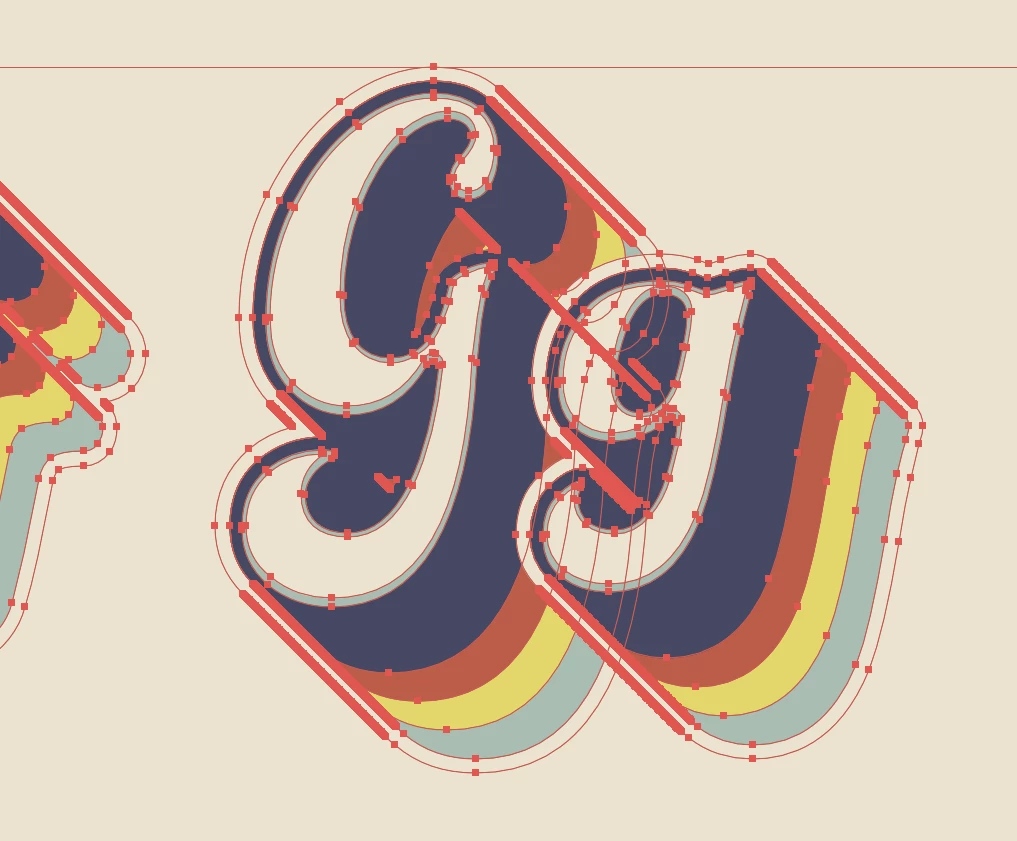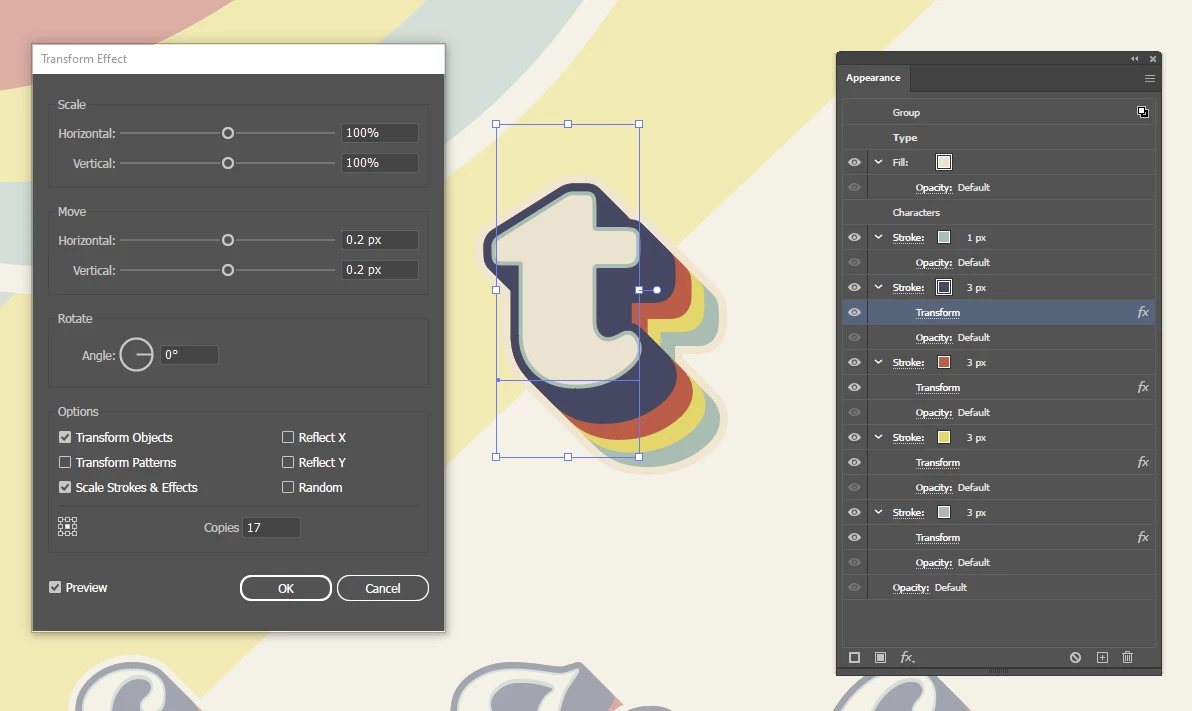
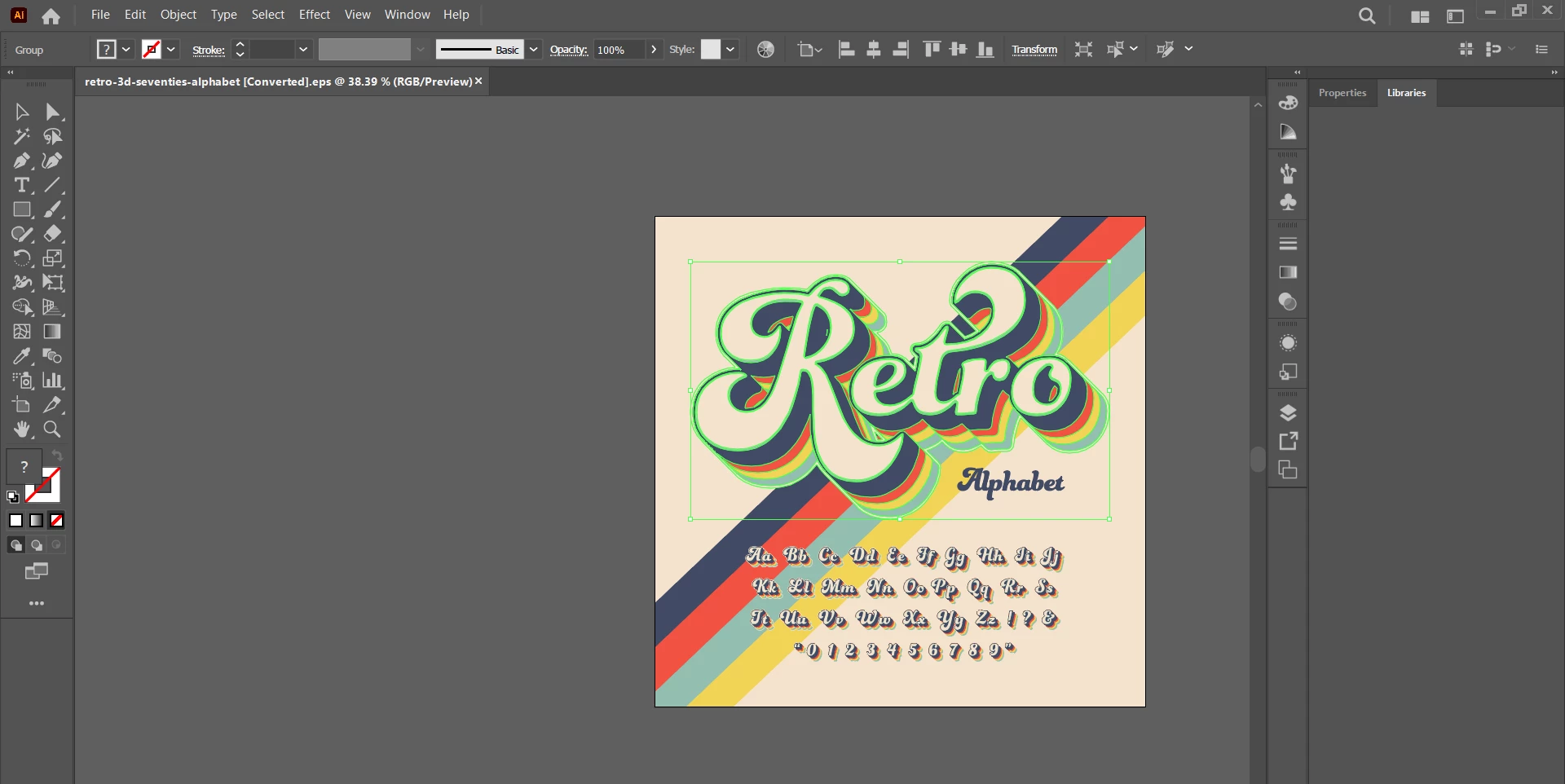
You could take a look into the Graphic styles panel. Sometimes only the art on the artboard is outlined, but there is still a graphic style you can use.
It didn't occur to me to look! Yes, there is one for the large text and one for the small:
You can have a look at how to copy and apply graphic styles in Illustrator
That means you could copy the effects (different colours, transformation, offsets etc) from the file you downloaded, onto a new text file you created. You will then be able to tweak those different elements to make it your own. (best way to learn is to reverse-engineer, I found).
Have a good look at the appeareance panel, and play with all the effects. You'll soon be able to make your own!
It depends what you mean by 'editable'. These are all editable paths:
But this is effectively an illustration of an alphabet, not a usable font file.
If you want to do something similar with live text, you could try this:
Each stroke has a transform effect with a small move value and an increasing number of copies. With a rounded font like this, it should have a comparable quality to the original (which appears to also have been created with blends or copies).
Have you actually checked the structure in the layers palette?